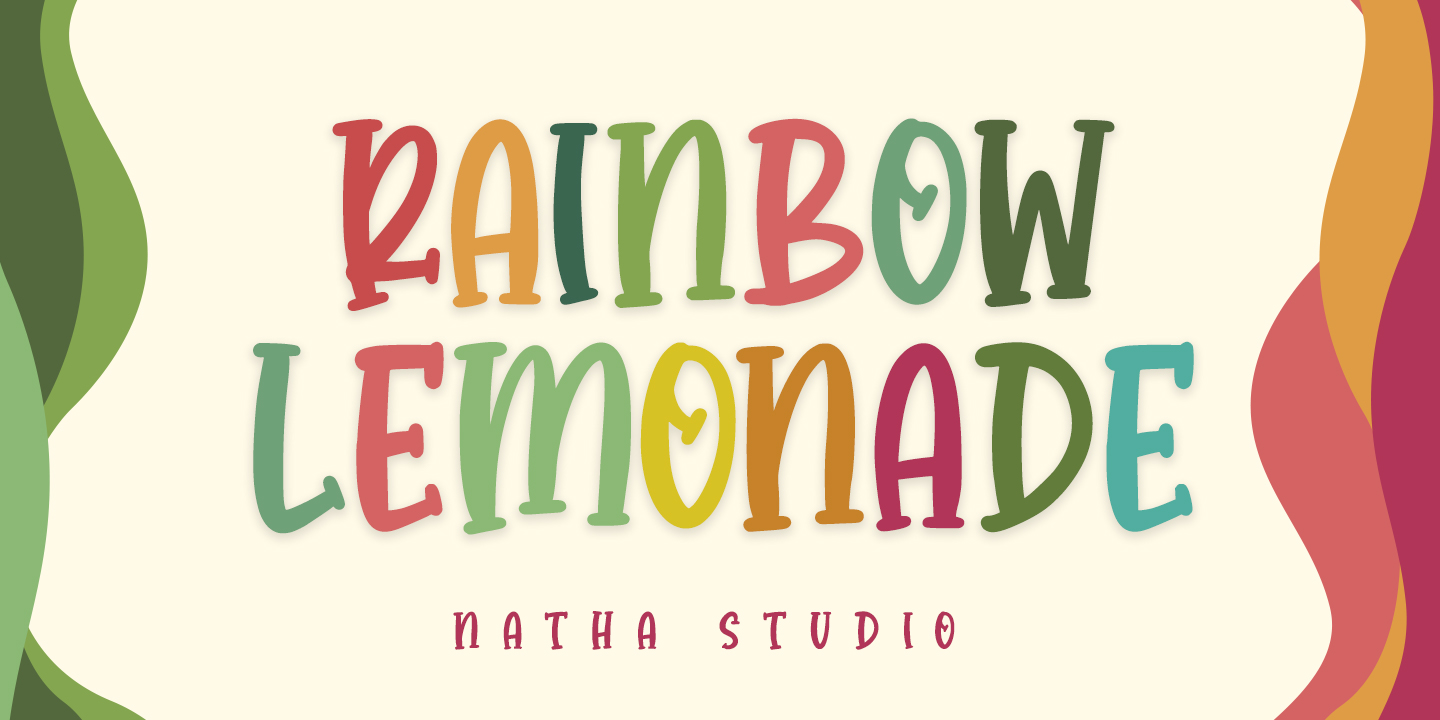
Rainbow Lemonade Font is perfect for cheerful beverage branding, colorful summer festival signage, vibrant ice cream shop logos, playful candy packaging, joyful children's party invitations, bright carnival advertisements, fun smoothie bar menus, and sunny outdoor event promotions. This delightful typeface excels in refreshing brand applications, seasonal celebrations, and any project requiring bright happiness that captures the essence of summer joy and colorful refreshment experiences.
What makes Rainbow Lemonade Font exciting is its incredible ability to instantly evoke feelings of summer happiness and refreshing joy through vibrantly crafted letterforms that burst with colorful energy and sweet satisfaction. The font features cheerfully designed characters with bubbly curves and refreshing proportions that communicate pure joy and thirst-quenching delight, making it ideal for brands seeking to establish connections with fun-loving audiences and convey refreshing positivity. Its sunny personality ensures immediate association with happiness and colorful celebration.
Rainbow Lemonade Font family includes multiple weights and styles: Regular, Bold, Light, Medium, Italic variations, and fizzy alternates with bubbly embellishments and rainbow-inspired decorative elements. Each family member maintains the distinctive refreshing character while offering comprehensive design options for colorful summer campaigns, from sparkling accent text to effervescent headlines that celebrate seasonal joy and refreshing brand experiences through vibrant typography.
Whether you're designing refreshing beverage brands or creating colorful summer marketing campaigns, Rainbow Lemonade Font Free Download provides the perfect typography solution for joyful branding needs. This font transforms ordinary text into sparkling visual celebrations that communicate refreshing happiness and colorful delight. Summer brands and refreshment companies choose this typeface for its ability to convey fizzy joy through brilliantly crafted letterforms that sparkle with rainbow energy and celebrate the sweet taste of summer.